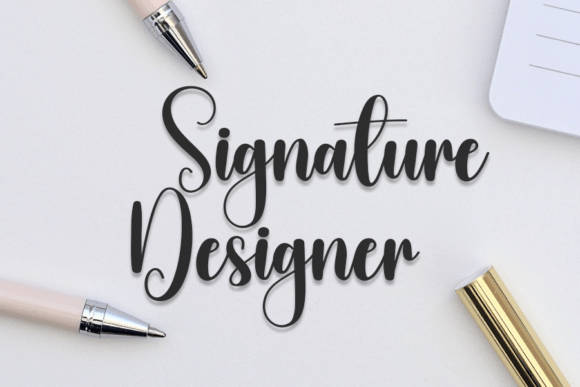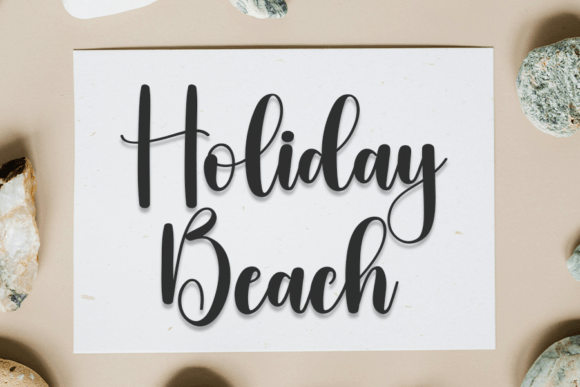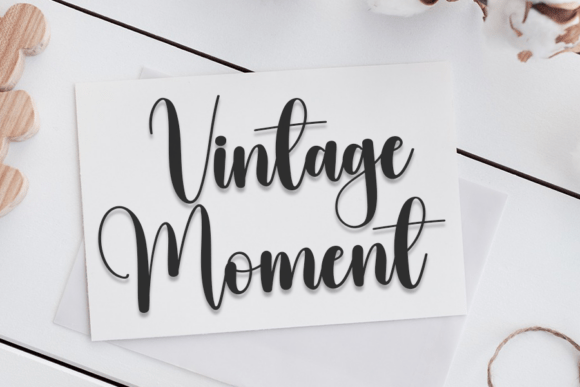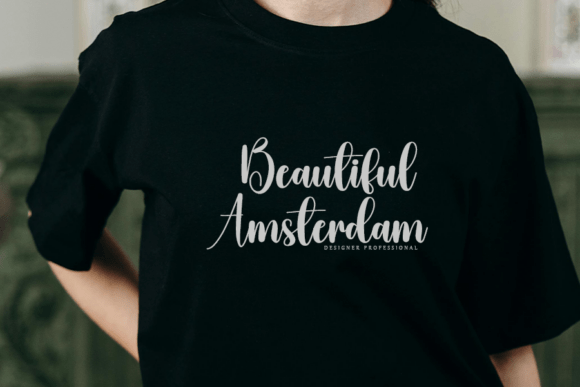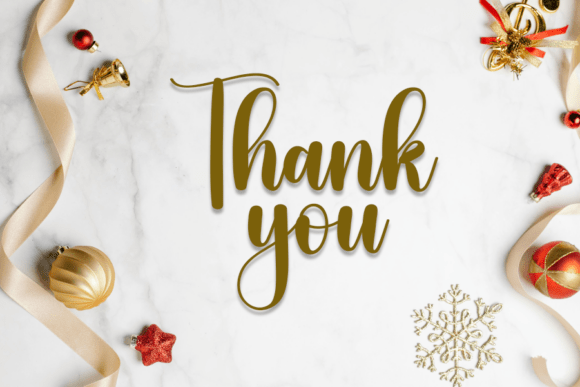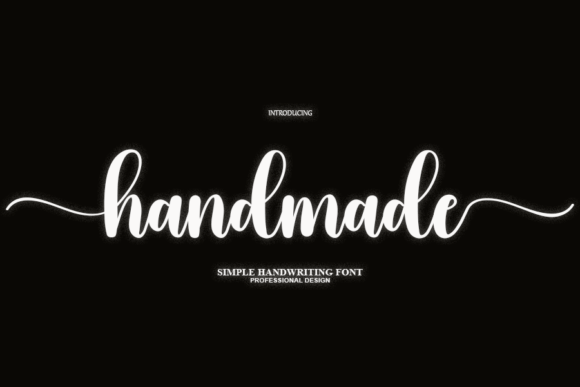
Introducing Handmade Font: A Delicate Handwritten Style for Unique Designs
In the world of typography, a handmade font can add a touch of personality and warmth to any design project. If you’re looking for a font that exudes a sense of craftsmanship and individuality, look no further than Handmade. This delicate handwritten font is carefully crafted to bring a cool and unique design to your letters, invitations, food products, titles, and more.
What is Handmade Font?
Handmade is a beautifully designed font that mimics the look and feel of handwritten text. With its intricate strokes and elegant curves, this font is perfect for designers and crafters who want to add a personal touch to their work. Whether you’re creating a wedding invitation, a food label, or a social media post, Handmade font is sure to make your design stand out.
Key Features of Handmade Font
• Handwritten style: Handmade font features a delicate handwritten style that is perfect for creating unique and personalized designs.
• Elegant curves: The font’s elegant curves and intricate strokes give it a sophisticated and refined look.
• Versatile: Handmade font can be used for a wide range of design projects, from letters and invitations to food products and titles.
• Easy to read: Despite its delicate nature, Handmade font is easy to read and understand, making it perfect for body text and headings.
Uses of Handmade Font
Handmade font is a versatile font that can be used in a variety of design projects. Here are some ideas to get you started:
• Wedding invitations: Add a touch of elegance and sophistication to your wedding invitations with Handmade font.
• Food labels: Use Handmade font to create beautiful and eye-catching labels for your food products.
• Social media posts: Add a personal touch to your social media posts with Handmade font.
• Blog posts: Use Handmade font to create visually appealing blog posts that stand out from the crowd.
• Product packaging: Add a touch of handmade charm to your product packaging with Handmade font.
Tips for Using Handmade Font
Here are some tips for using Handmade font in your design projects:
• Use it sparingly: Handmade font is a delicate font that can be overwhelming if used excessively. Use it sparingly to create a sense of elegance and sophistication.
• Pair it with other fonts: Pair Handmade font with other fonts to create a unique and visually appealing design.
• Experiment with colors: Experiment with different colors to find the perfect combination that complements Handmade font.
• Pay attention to spacing: Pay attention to the spacing between letters and words to ensure that your design looks clean and elegant.
Font Name Handmade Font
Author ade studio
Handmade font is a beautiful and delicate handwritten font that is perfect for designers and crafters who want to add a touch of personality and warmth to their design projects. With its elegant curves and intricate strokes, this font is sure to make your designs stand out. Whether you’re creating a wedding invitation, a food label, or a social media post, Handmade font is a great choice.